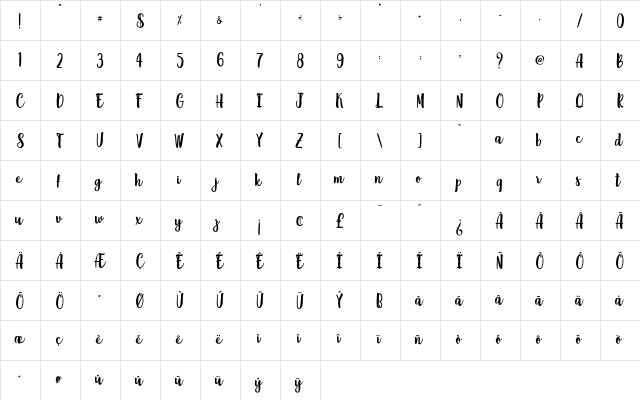
Fat Inlove - Personal Use Regular Font Preview
Fat Inlove - Personal Use Regular
Fat Inlove - Personal Use Regular Font Details
| Foundry | Typhoon Type - Suthi Srisopha |
| Designer | Typhoon Type - Suthi Srisopha |
| Year | 2021 |
Design Context for Fat Inlove - Personal Use Typeface
Fat Inlove - Personal Use is a composed and adaptable typeface that performs quietly and consistently across a wide range of design contexts.